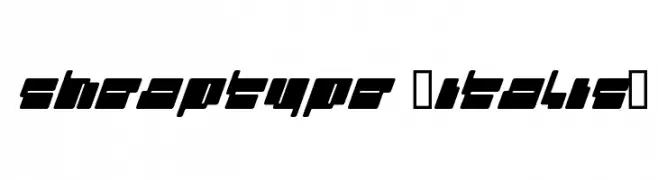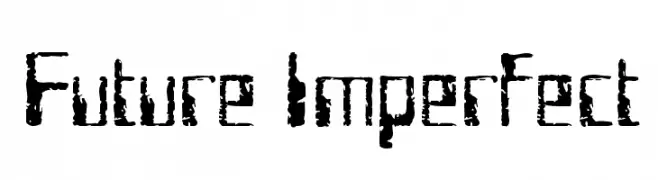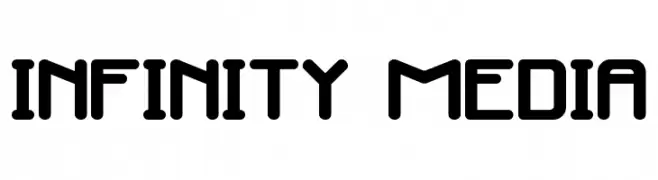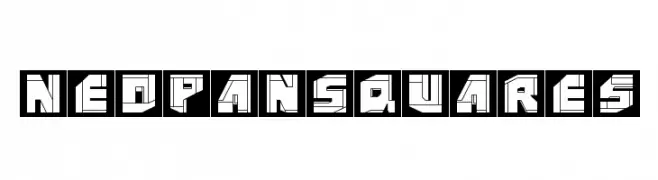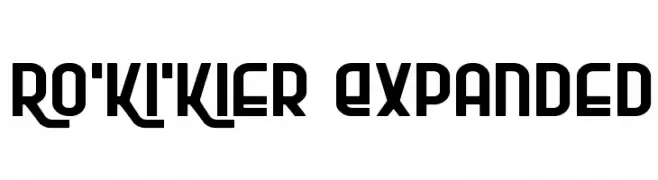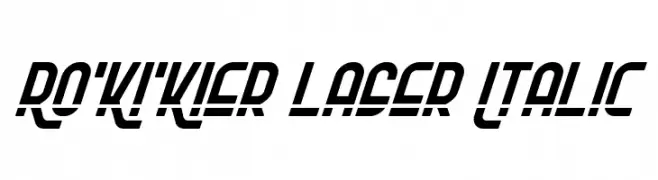
A bold, angular, and futuristic italic font with a strong visual impact.
A distressed, rugged font with a bold, eroded appearance.
A bold, italicized font with a futuristic, geometric design.
A bold, geometric font with a modern and futuristic design, featuring expanded width for clarity.
A modern, angular italic font with a mechanical and futuristic design.
A modern, geometric font with rounded edges and a bold, futuristic style.
A bold, geometric font with a futuristic and digital aesthetic.